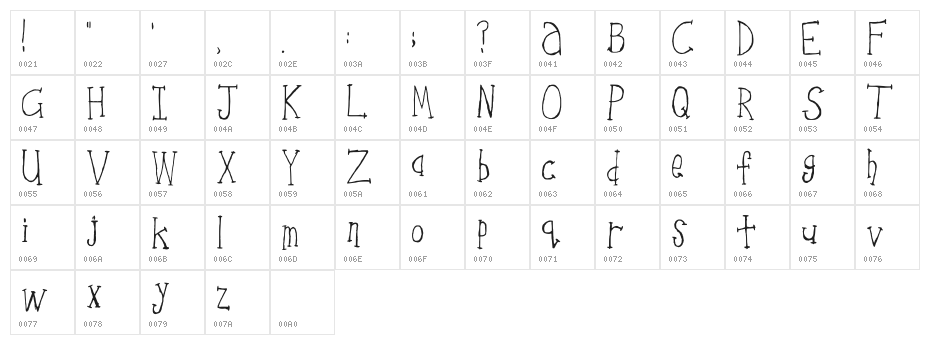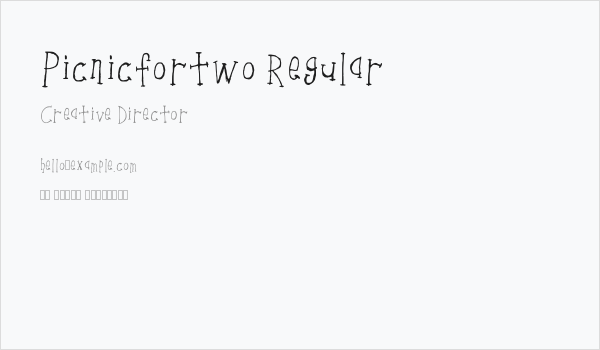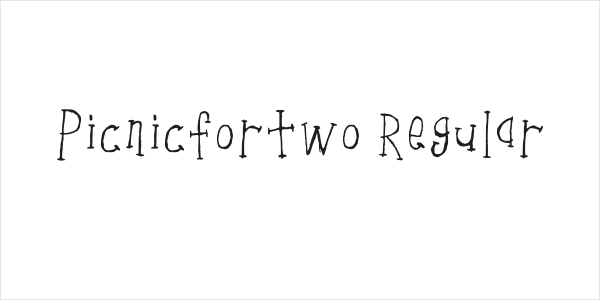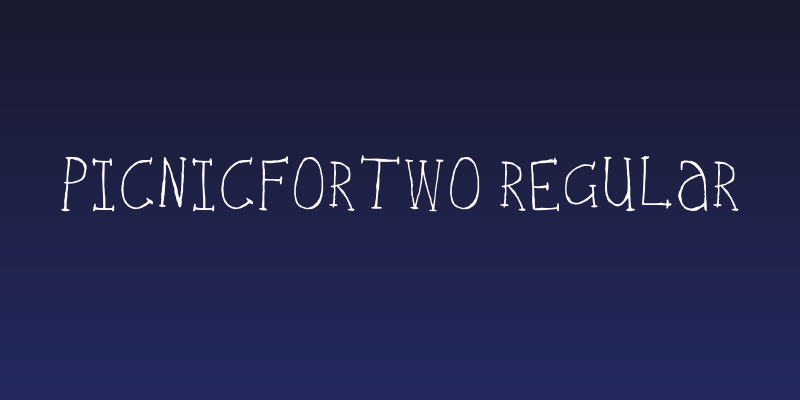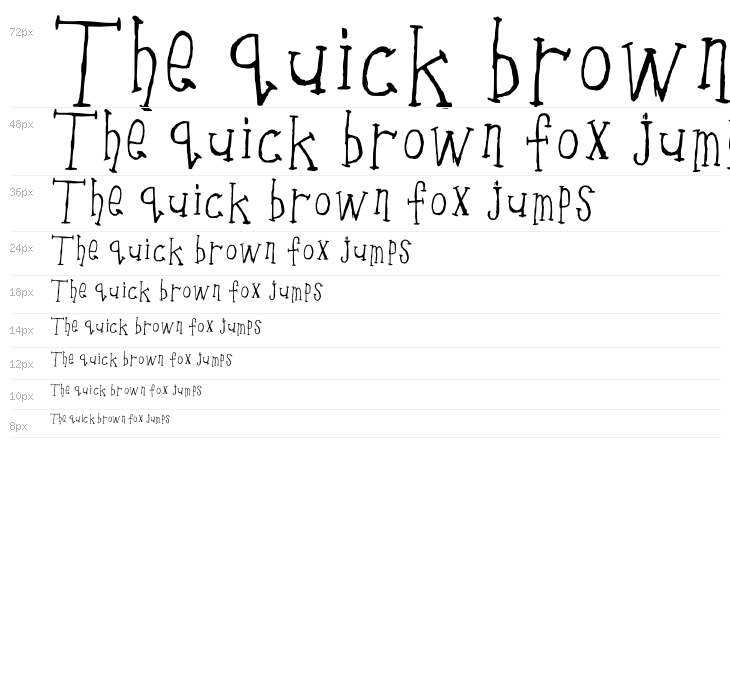
Picnicfortwo Regular Font
Picnicfortwo Regular Description
This font features a whimsical and playful style, characterized by its uneven and hand-drawn appearance. The letters have a quirky, almost childlike quality, with irregular strokes and varying heights that give it a unique charm. The uppercase and lowercase letters maintain a consistent style, with some letters featuring exaggerated curves and loops. The numbers and special characters follow the same playful design, making it suitable for creative and informal projects. Its distinctive look is perfect for capturing attention and adding a personal touch to any design.
| Proposed Projects | Ideal for children's books, greeting cards, playful branding, and creative posters. |